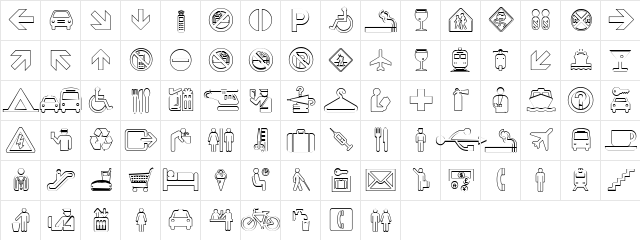
Travelcons Outline Regular
Design Context for Travelcons Outline Typeface
Travelcons Outline is built around its visual character rather than neutral utility — its distinctive forms are designed to make an impression at display sizes.
Font Pairing: Pair with a clean neutral sans-serif for body copy to let Travelcons Outline's character lead without overwhelming the composition.
Pro Tip: Treat Travelcons Outline as the centrepiece of your typographic hierarchy. One strong heading set in a decorative face can carry an entire layout.